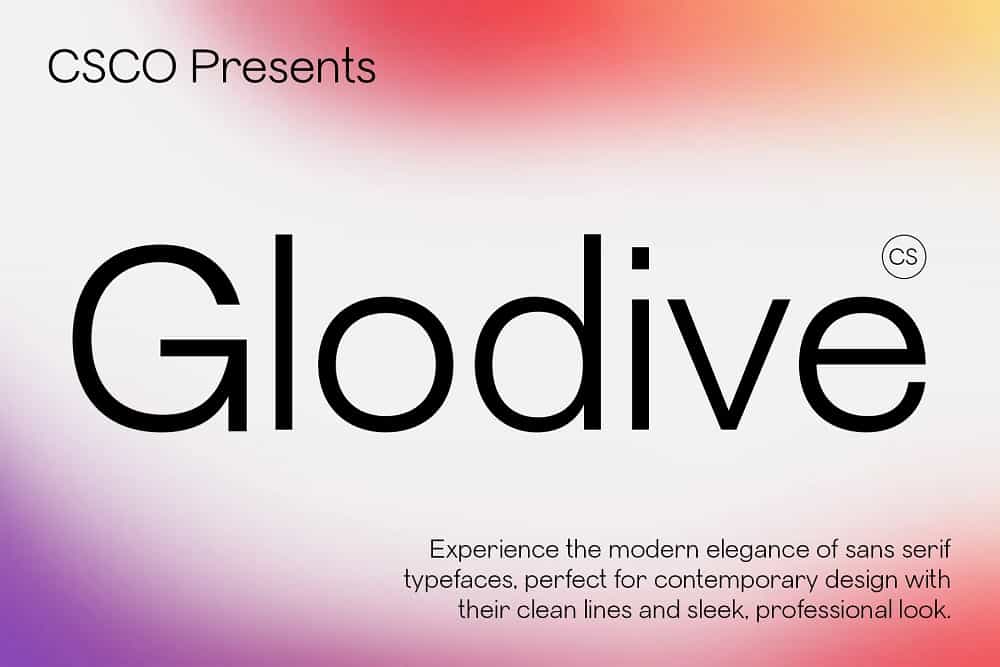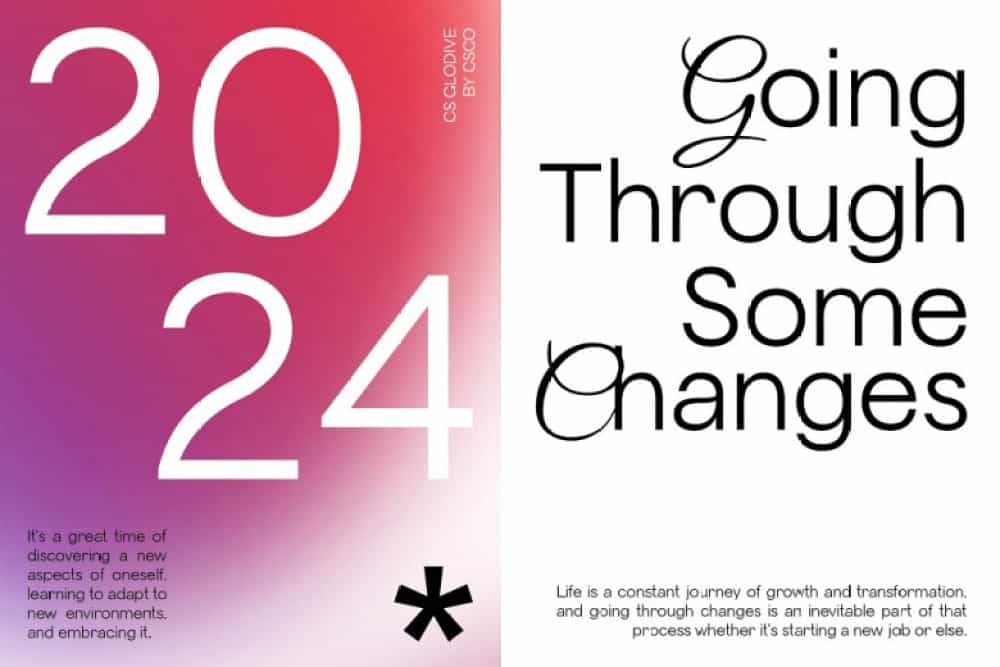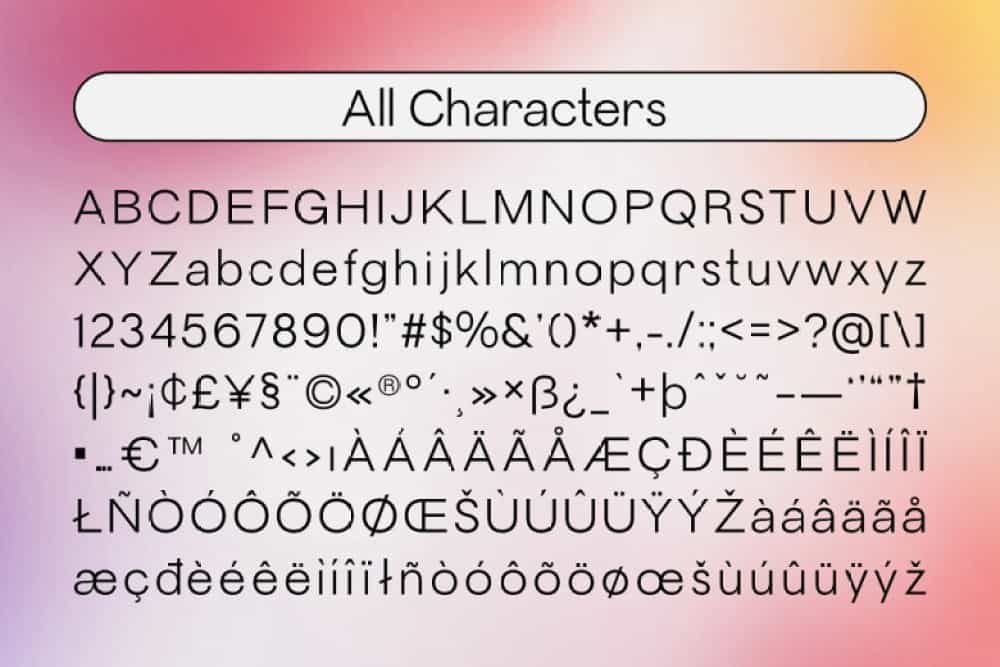
CS Glodive is a contemporary sans-serif font that has a clean look with some exquisite detailing. Both suitable for the corporate world, this font gives a clean and neat impression that is suitable for most design projects. The simple layout of CS Glodive is ideal for companies and other professional establishments.